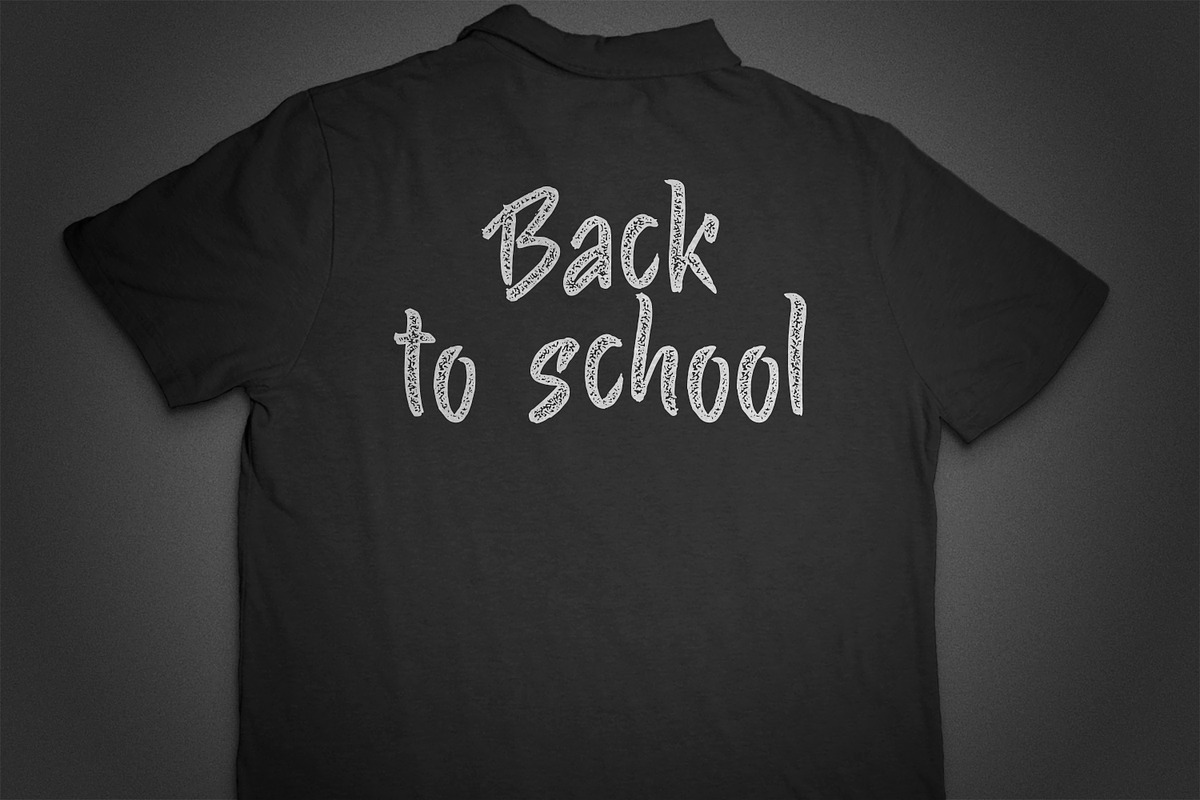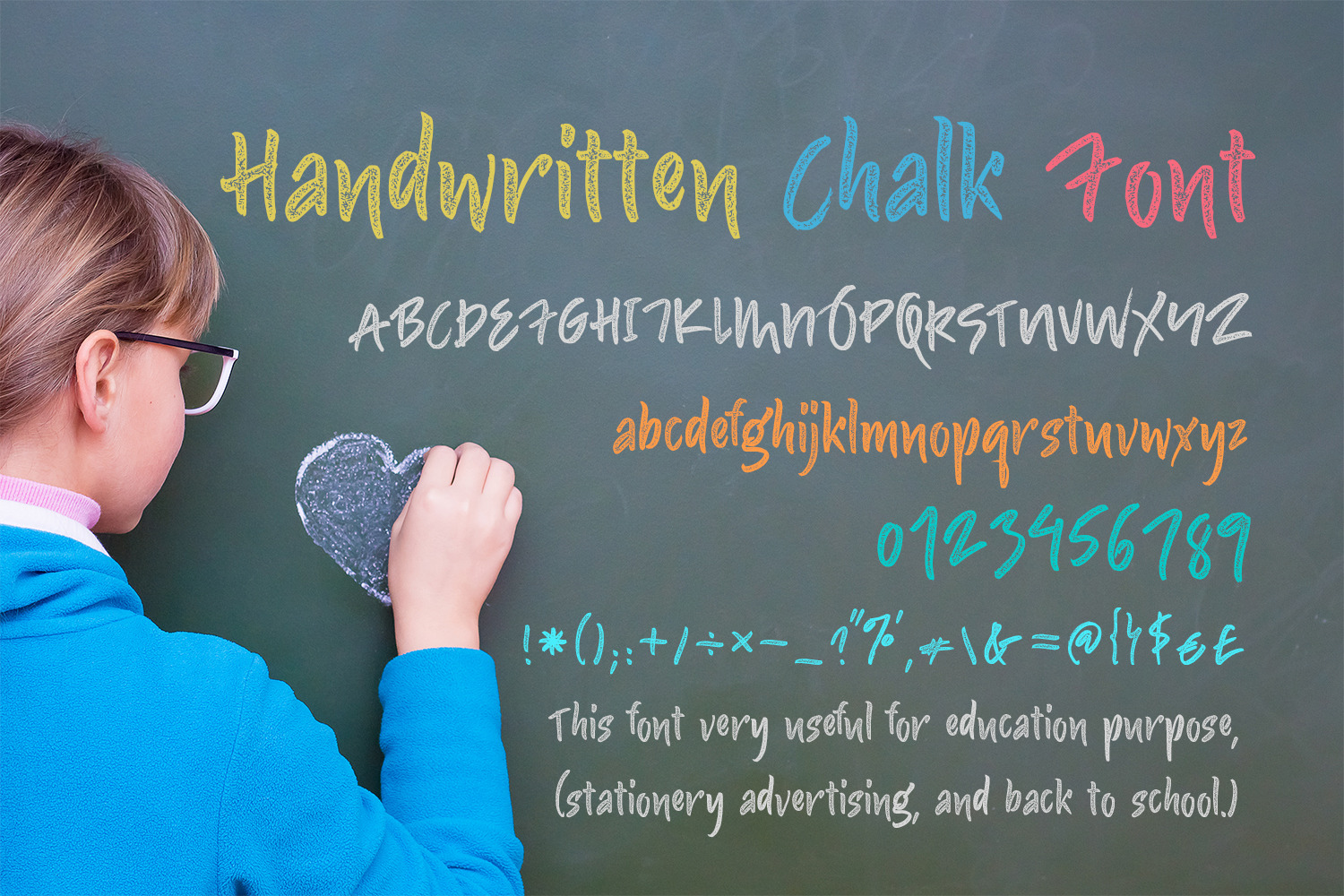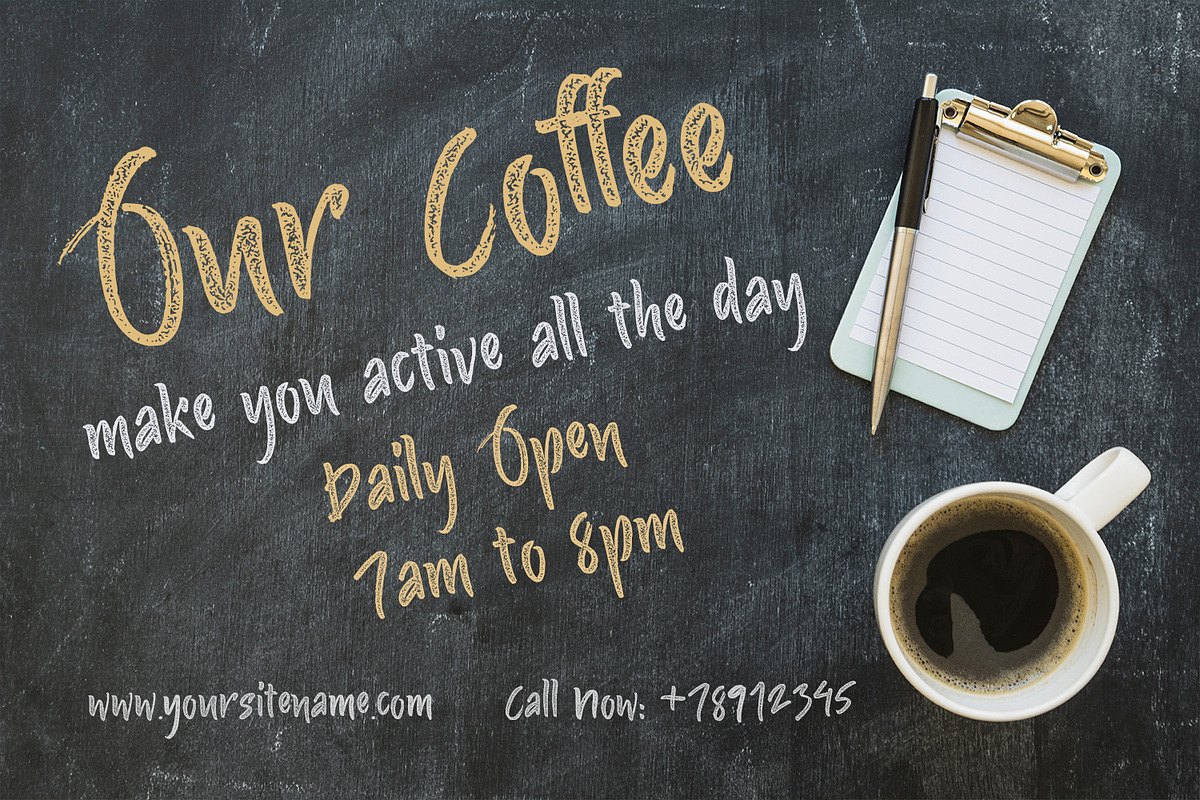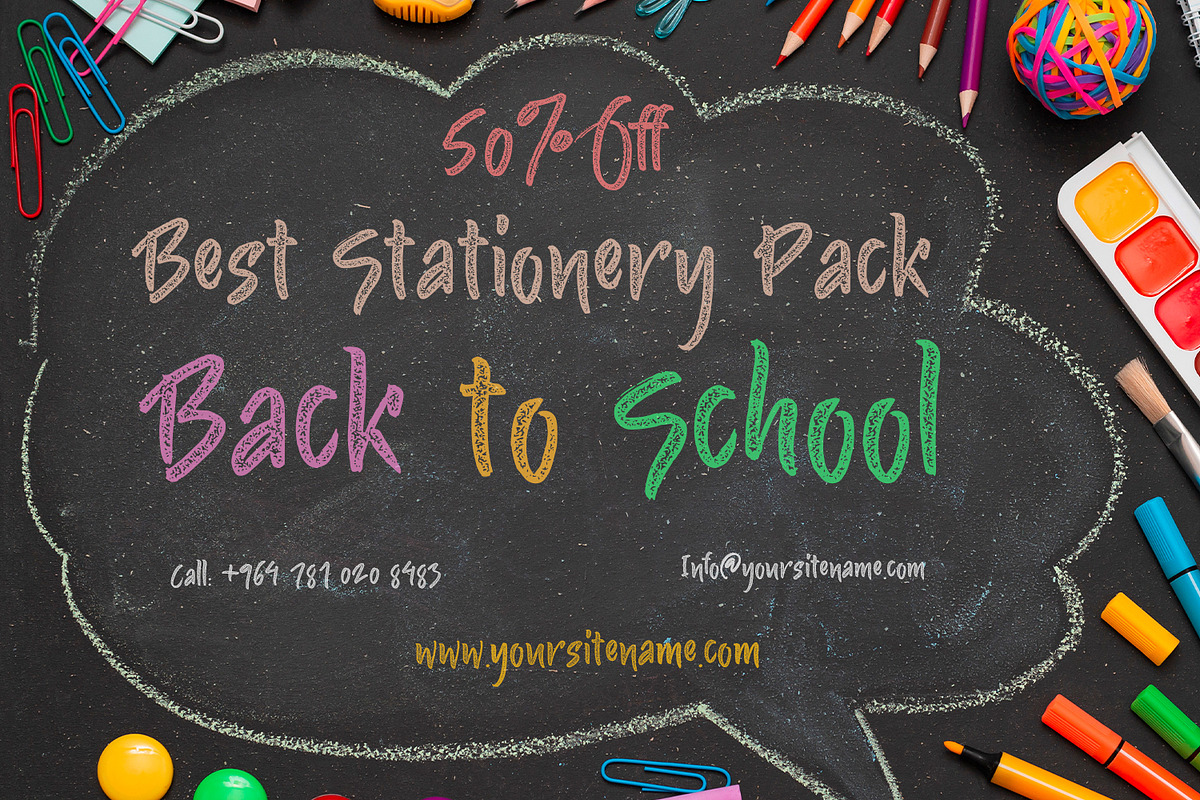
Handwritten Chalk Font
Handwritten Chalk is a sweet and colorful handwritten font. Fall in love with its incredibly versatile style and use it to create spectacular designs!